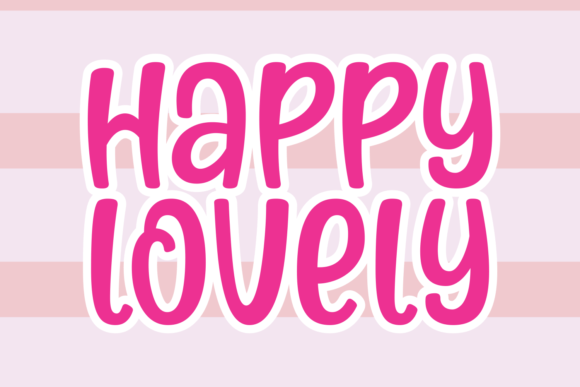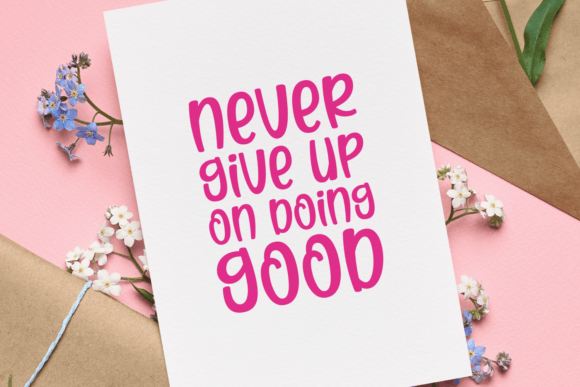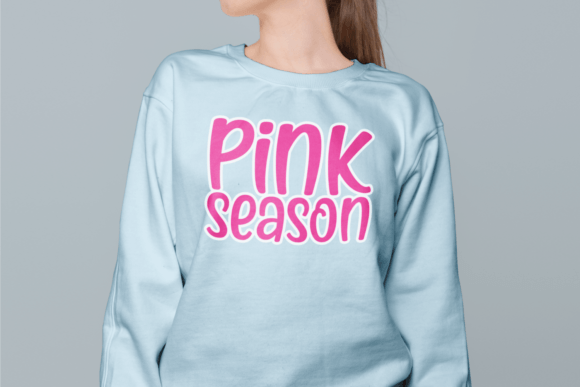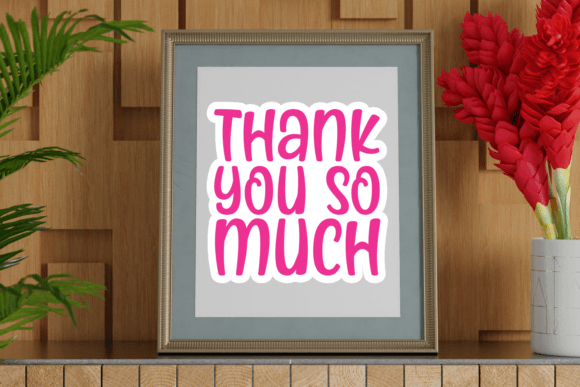
Introduction to Really Honey Font
Have you ever been brainstorming for a creative project, and suddenly, the perfect design idea pops into your mind? For many designers, that moment is what makes all the hard work worth it. It’s the spark that sets off a chain reaction of imagination and innovation. For us, that moment came when we discovered the Really Honey Font – a dynamic, all-encompassing typeface that embodies the perfect blend of whimsy and charm.
As a valuable resource for designers, the Really Honey Font is a game-changer. With its unique combination of handwritten, cartoon-inspired, and idiosyncratic elements, this font is perfect for a wide range of creative projects. Whether you’re designing a bold t-shirt, a sweet greeting card, or a detailed scrapbook decoration, the Really Honey Font has got you covered.
Key Features of Really Honey Font
- Includes a range of glyphs and characters, making it suitable for a variety of creative applications
- Designed with a unique aesthetic, offering a distinctive touch to any design project
Honest Review: Really Honey Font
I recently had the chance to work with Really Honey Font on a creative project, and I must say it’s been a delightful experience. The font is perfect for designers looking for a high-quality design resource to elevate their work.
- ✨ The font’s modern design aesthetic is both stylish and sophisticated, perfect for a wide range of creative projects.
However, I do have a few minor complaints. The font’s limited character set can be a bit restrictive for designers who need to work with a wide range of characters.
- ⚠️ Limited character set can be a hindrance for some designers.
Overall, I’m impressed with Really Honey Font’s performance and would highly recommend it to designers looking for a high-quality, free download font. With its modern design and seamless transparency feature, it’s a great addition to any design toolkit.
Really Honey Font is suitable for various creative projects, including logo designs, typography-based artwork, and social media graphics. Its unique design makes it perfect for creating eye-catching and memorable designs.
To get the most out of Really Honey Font, experiment with different font sizes, styles, and combinations. You can also use the font in conjunction with other design elements, such as images and shapes, to create visually appealing designs.
The Great Vibes Font is a beautiful, elegant script font perfect for creative projects that require a touch of sophistication. It’s ideal for wedding invitations, greeting cards, and other design resources that need a delicate, handwritten feel. With a transparent background and free download option, it’s an excellent alternative to Really Honey Font for designers who want high-quality results.
Comparison to Really Honey Font: Great Vibes Font has a more refined, sophisticated look, making it suitable for more formal design projects. It lacks the playful, whimsical feel of Really Honey Font, but excels in elegance and sophistication.
The Alex Brush Font is a high-quality, handwritten font that’s perfect for design projects requiring a personal, creative touch. It’s ideal for logos, branding materials, and other creative projects where a unique, artistic feel is desired. With its transparent background and free download option, it’s an excellent choice for designers seeking an alternative to Really Honey Font.